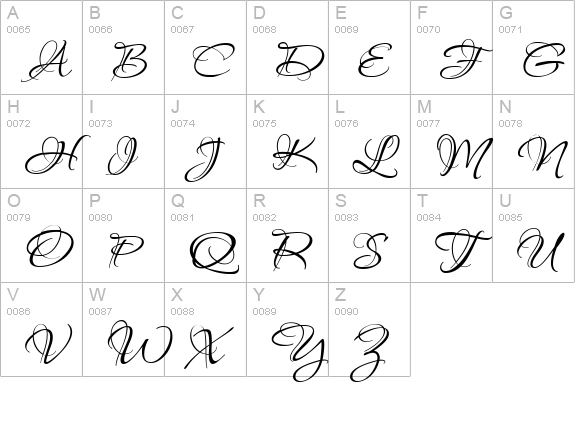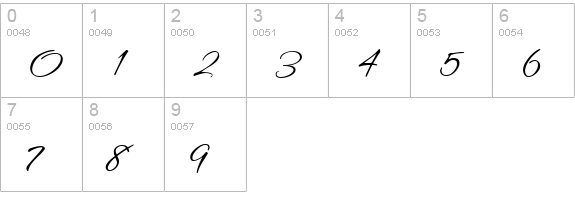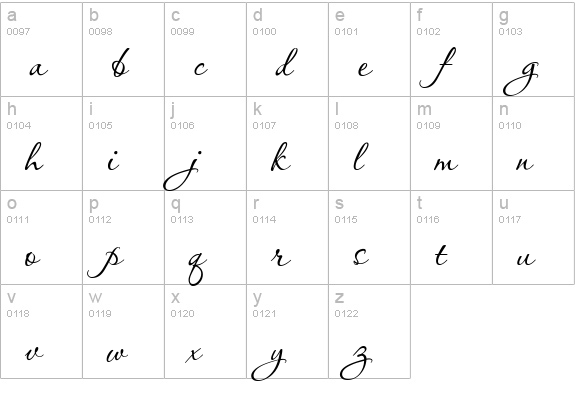
Aquarelle Font Details
Aquarelle font is a delightful and artistic typeface that exudes elegance and charm. Its flowing and playful letterforms mimic the beauty and fluidity of watercolor paintings, making it perfect for designs that require a touch of sophistication and creativity. The gentle brush strokes and soft edges of Aquarelle font give it a unique and whimsical appeal, making it stand out from traditional typefaces. The best part about Aquarelle font is that it is completely free for personal and commercial use. You can easily download this beautiful font at FontsMarket.com and enhance your projects with its graceful and enchanting style. Whether you are working on invitations, posters, branding, or any other design project, Aquarelle font will add a touch of artistry and elegance to your work. Don't miss out on this amazing opportunity to elevate your designs with the free Aquarelle font from FontsMarket.com!